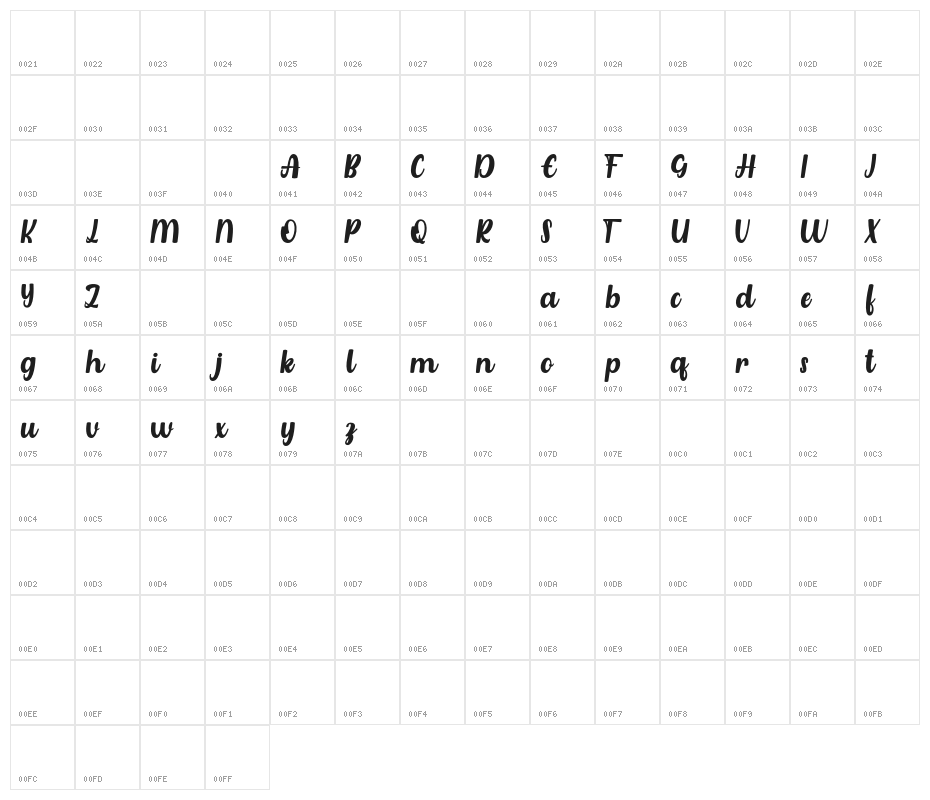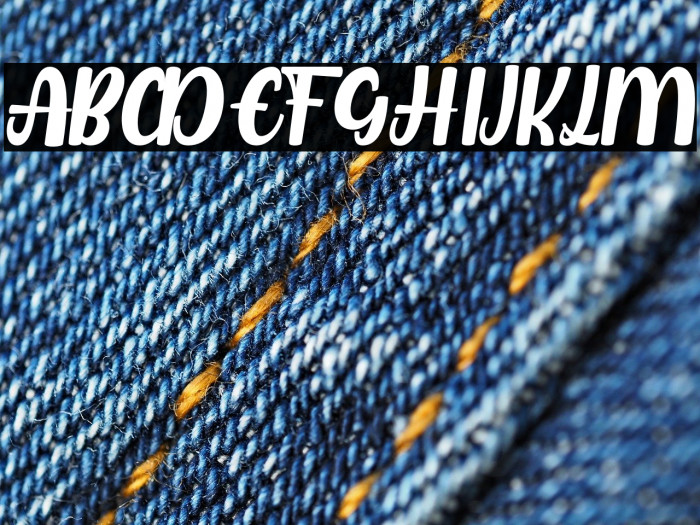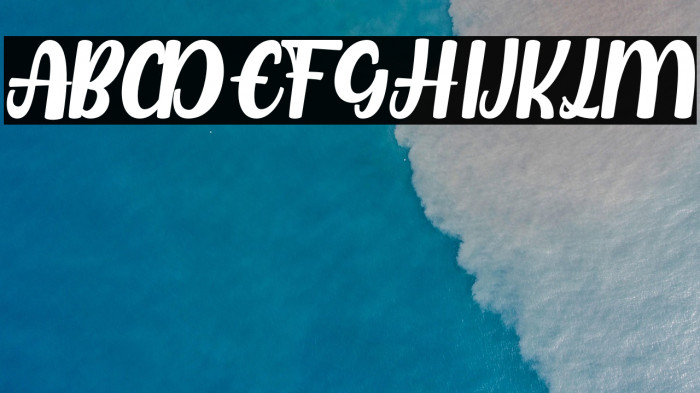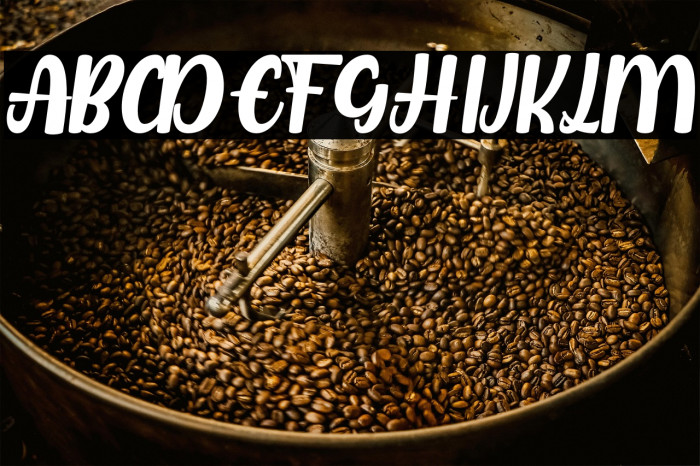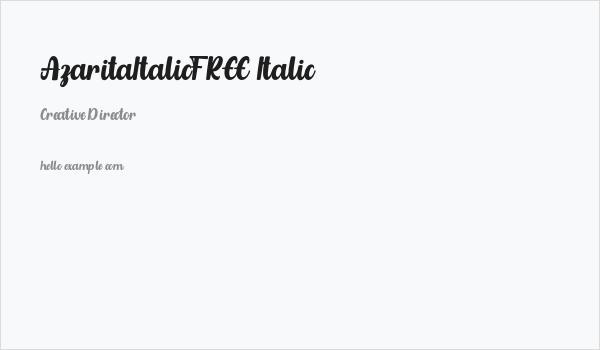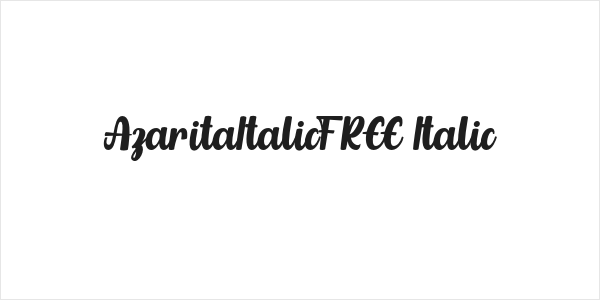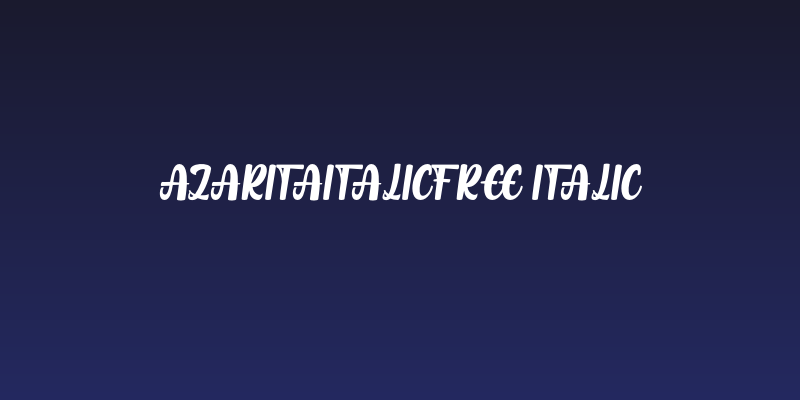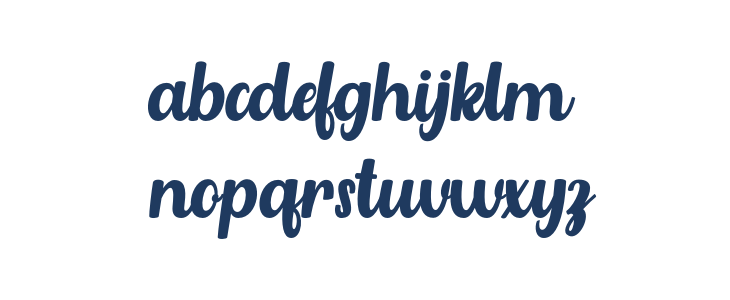
AzaritaItalicFREE-Italic Font
AzaritaItalicFREE-Italic Description
This font features a bold and expressive script style with a flowing, cursive appearance. The letters are connected, creating a seamless and elegant look. The uppercase characters are particularly striking, with exaggerated loops and curves that add a touch of sophistication. The lowercase letters maintain a consistent style, complementing the uppercase with their smooth and rounded forms. The overall design is both playful and refined, making it suitable for a variety of creative projects.